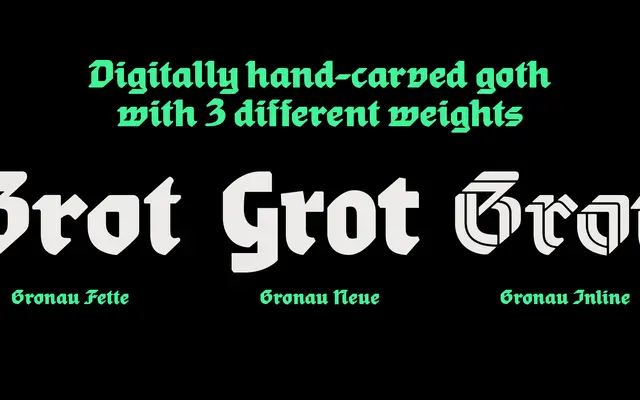
Gronau
Zetafonts · Andrea Tartarelli · 2022
A three-part blackletter family by Andrea Tartarelli, built from a digital revival of Wilhelm Gronau's 1902 Fette Reichs-Deutsch and extended into inline and calligraphic display variants.
Gronau Fette begins as a faithful digitisation of the original's broad, square gothic structure, characterised by mild contrast, geometric shapes and clean 45-degree angles. Gronau Inline transforms those same nib-cut strokes into a 3D ribbon effect that gives the gothic forms a sporty, dynamic energy. Gronau Neue departs most from the source, using condensed proportions and a generous x-height to arrive at a calligraphic contemporary blackletter suited to editorial and packaging contexts.
The family is explicitly blackletter-inspired, rooted in a 1902 geometric gothic typeface. Each variant reinterprets gothic letterforms through different lenses: digital revival, inline 3D display, and contemporary calligraphic condensed.